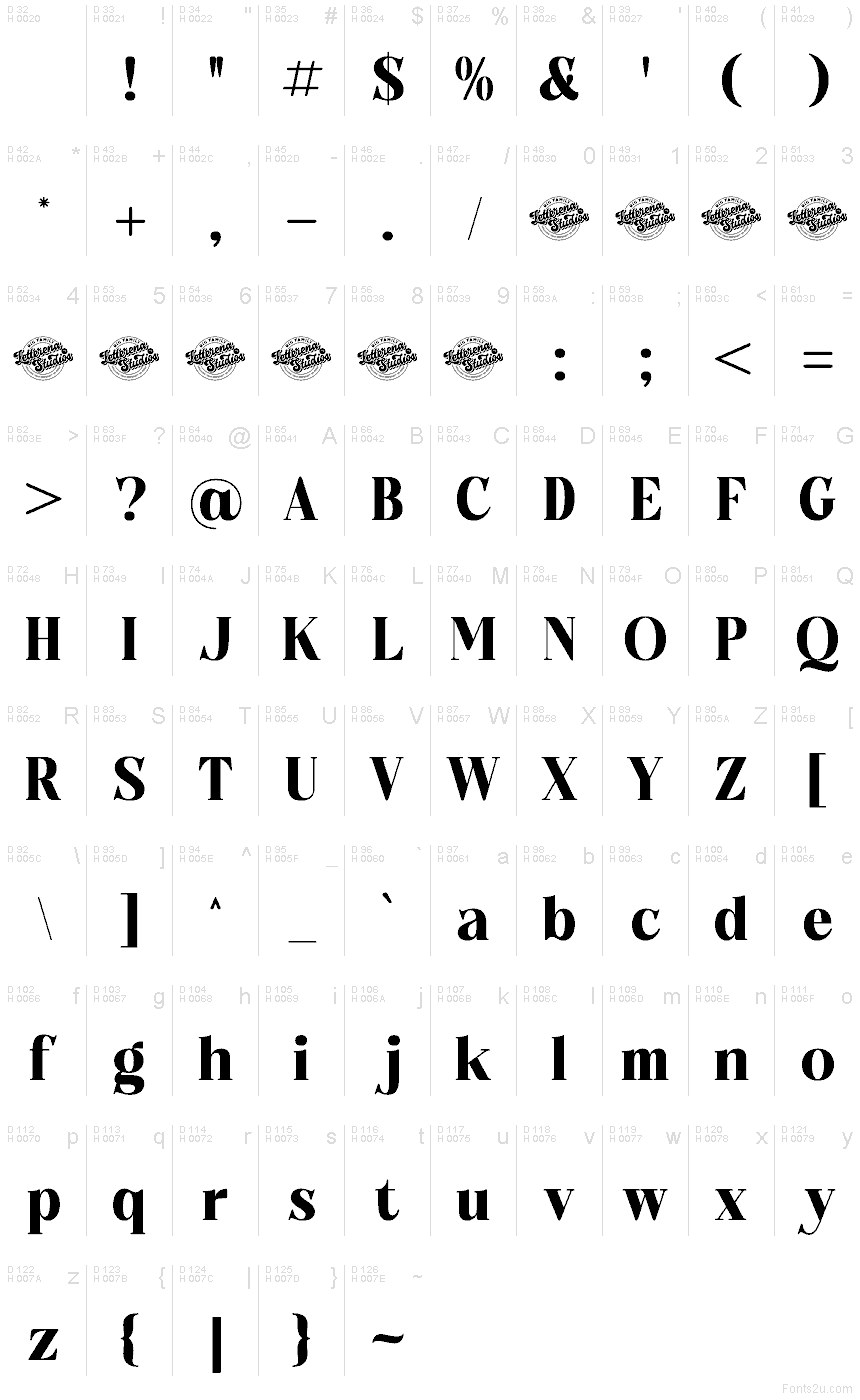
Monstac Realmid DEMO VERSION
Monstac Realmid font by Letterena Studios is a free modern serif font. Built around crisp, chiseled serifs and sculpted strokes, it carries a confident, editorial presence without feeling cold. The forms are taut and deliberate, with compact rhythm and knife-edge details that catch the eye like cut paper. It projects refinement with a decisive snap, giving headlines and wordmarks a polished, camera-ready finish.
Using Monstac Realmid, you’ll get striking logos, editorial mastheads, book covers, fashion posters, beauty branding, luxury packaging, and event invitations that read upscale from the first glance. This free font shines when set large with a touch of breathing room. Pair it with a clean grotesk sans for body copy to let its carved contrasts do the talking.